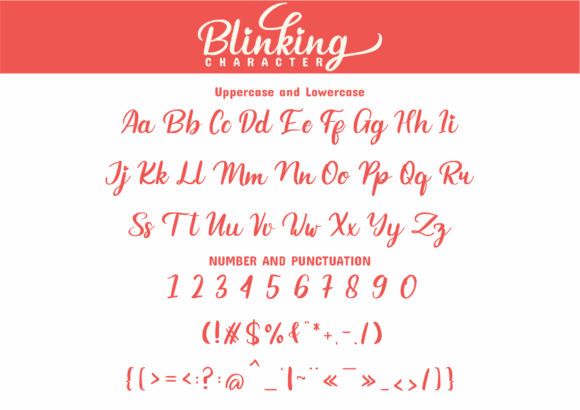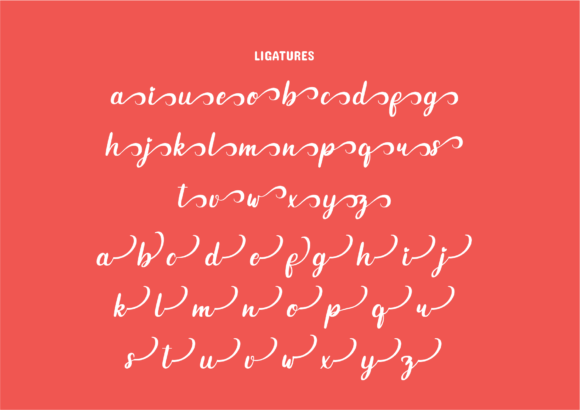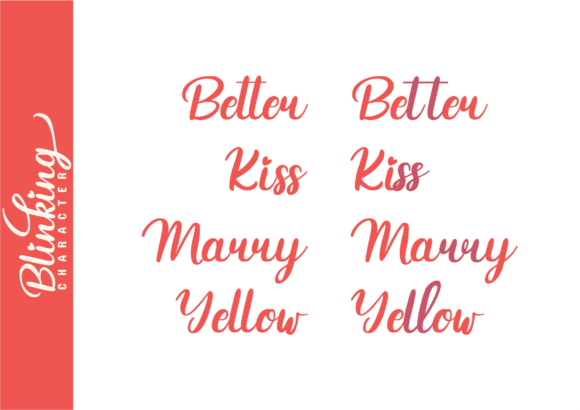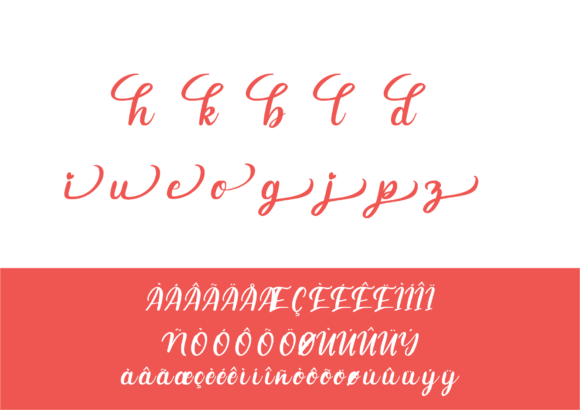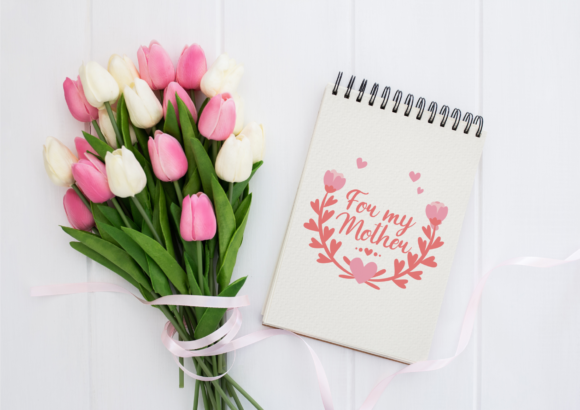
The Blinking Font: A Lovely and Delicate Script Font for Elegant Designs
Have you ever been in the middle of a design project, and suddenly, you just can’t seem to find the right font? I know I have. It was a few months ago when I was working on a wedding invitation design for a client. She wanted something elegant, classy, and refreshing. I scoured through my font library, but nothing seemed quite right. That’s when I stumbled upon the Blinking font. It was love at first sight! 💕
Blinking is a beautiful and delicate script font that exudes elegance and class. This font was particularly crafted for those who need a beautiful and refreshing look to their designs. In this article, I’ll share my experience with the Blinking font, its features, and how to make the most of it in your designs.
An Honest Review of Blinking Font
• ✨ Elegant and classy design that’s perfect for wedding invitations, branding, and more
• 💫 Beautifully crafted to add a touch of sophistication to your designs
• 🎉 Highly versatile and can be used for a variety of design projects
While I absolutely love the Blinking font, there are a few minor quirks to be aware of: 🤔
• ⚠️ Some users may find the font a bit too delicate for certain design projects
• ⚠️ May require some adjustments to work well with other fonts in your design
The Designer Inspiration Behind Blinking Font
The Blinking font was designed with elegance and class in mind. The designer aimed to create a font that would add a touch of sophistication to any design project. Inspired by traditional calligraphy and modern typography, the Blinking font is a beautiful and refreshing addition to any design library.
Q: What is the Blinking font best used for?
A: The Blinking font is best used for designs that require an elegant and classy look, such as wedding invitations, branding, and more.
Q: Is the Blinking font suitable for body text?
A: While the Blinking font is beautiful, it’s best suited for headings and titles. For body text, a clearer font may be more suitable.